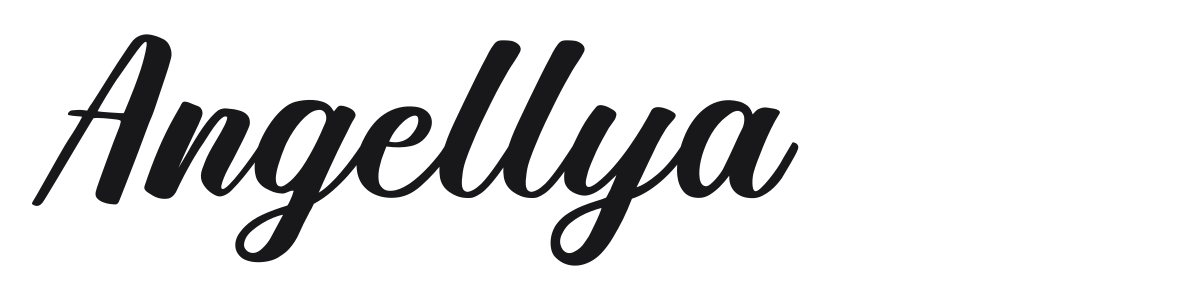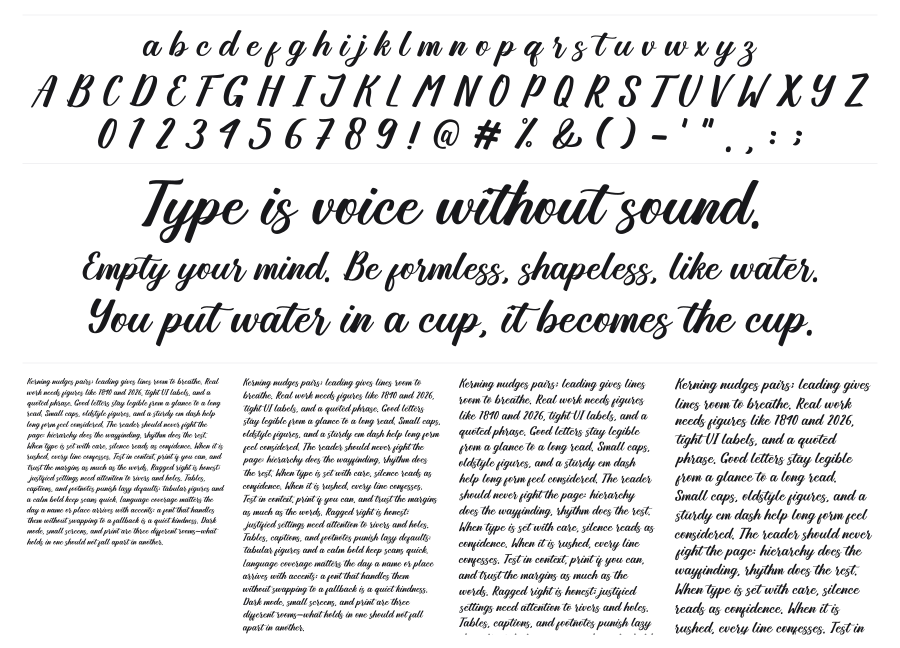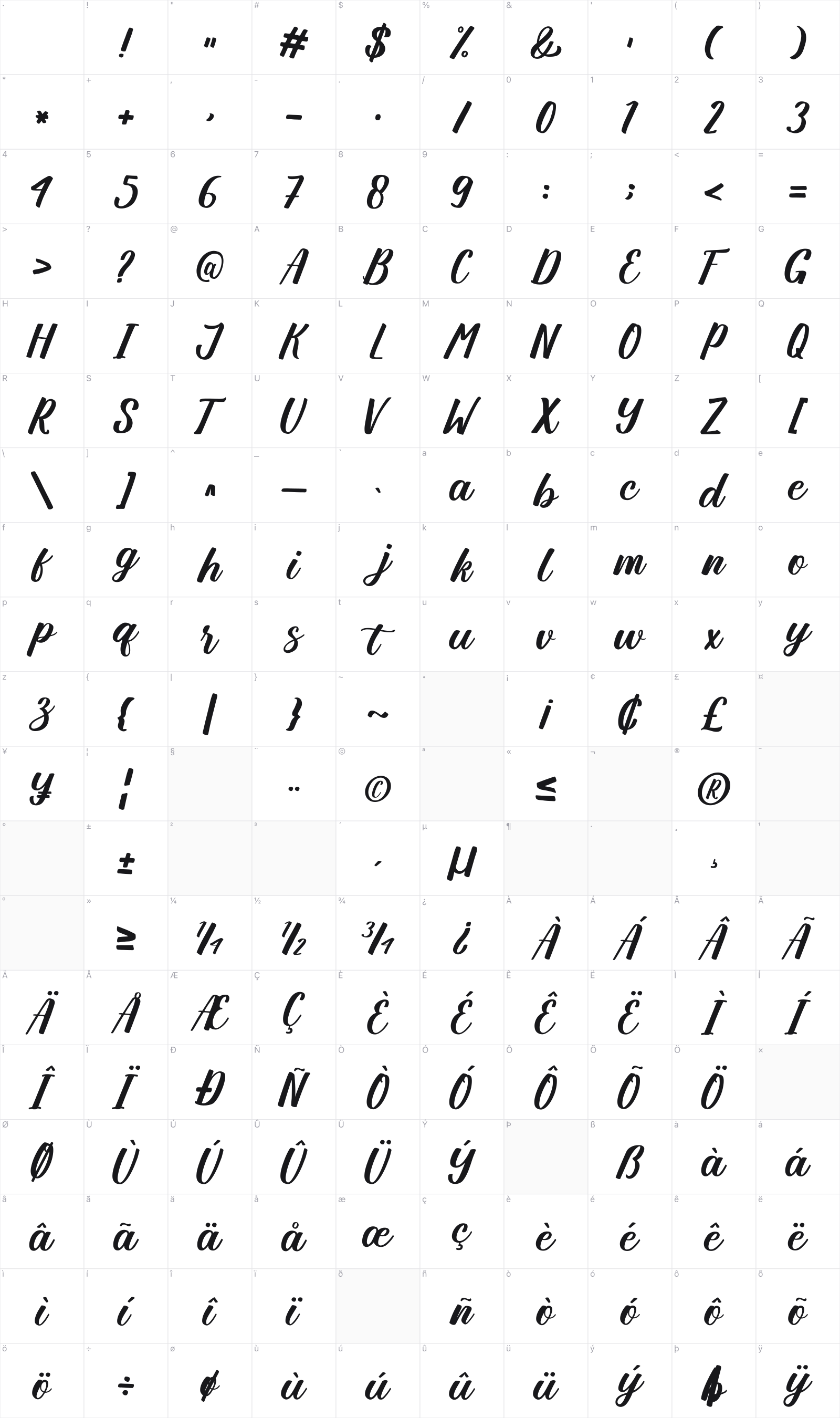
Angellya
Angellya is a bold modern calligraphy script with sweeping connected strokes and a lively, hand-lettered rhythm. The high contrast between thick downstrokes and delicate hairlines gives it energy without losing legibility at display sizes. It has the warmth and personality that works well across wedding stationery, packaging, and lifestyle branding.